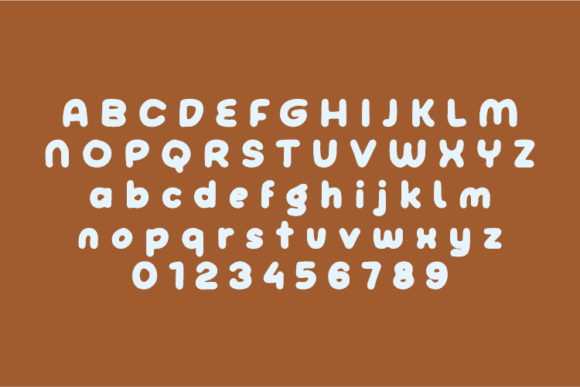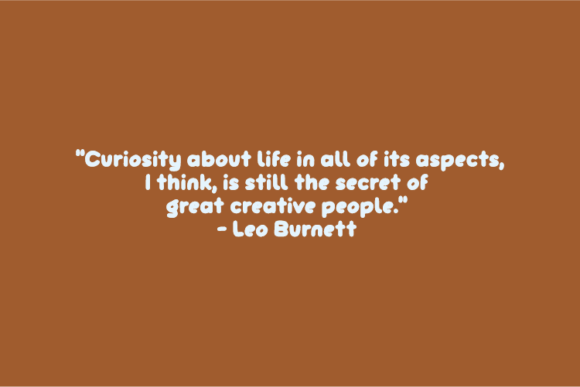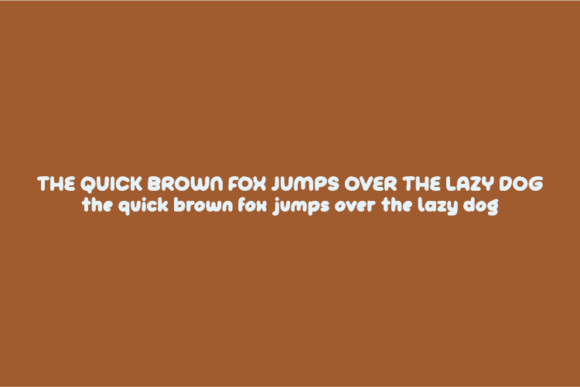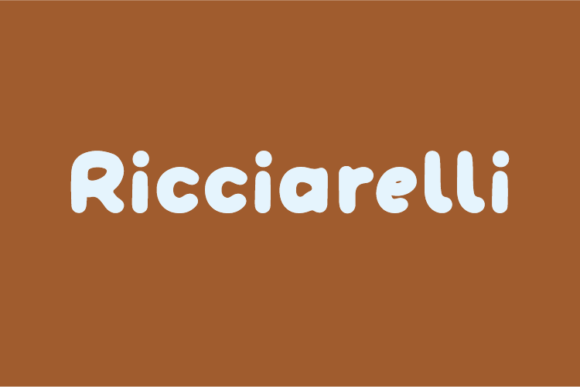
Introduction to Ricciarelli Font
Ricciarelli is a natural display font made without changing a single node in each character’s indentation.
This makes this font very interesting and unique Perfect for quotes, notes, tees, and any product design.
Key Features of Ricciarelli Font